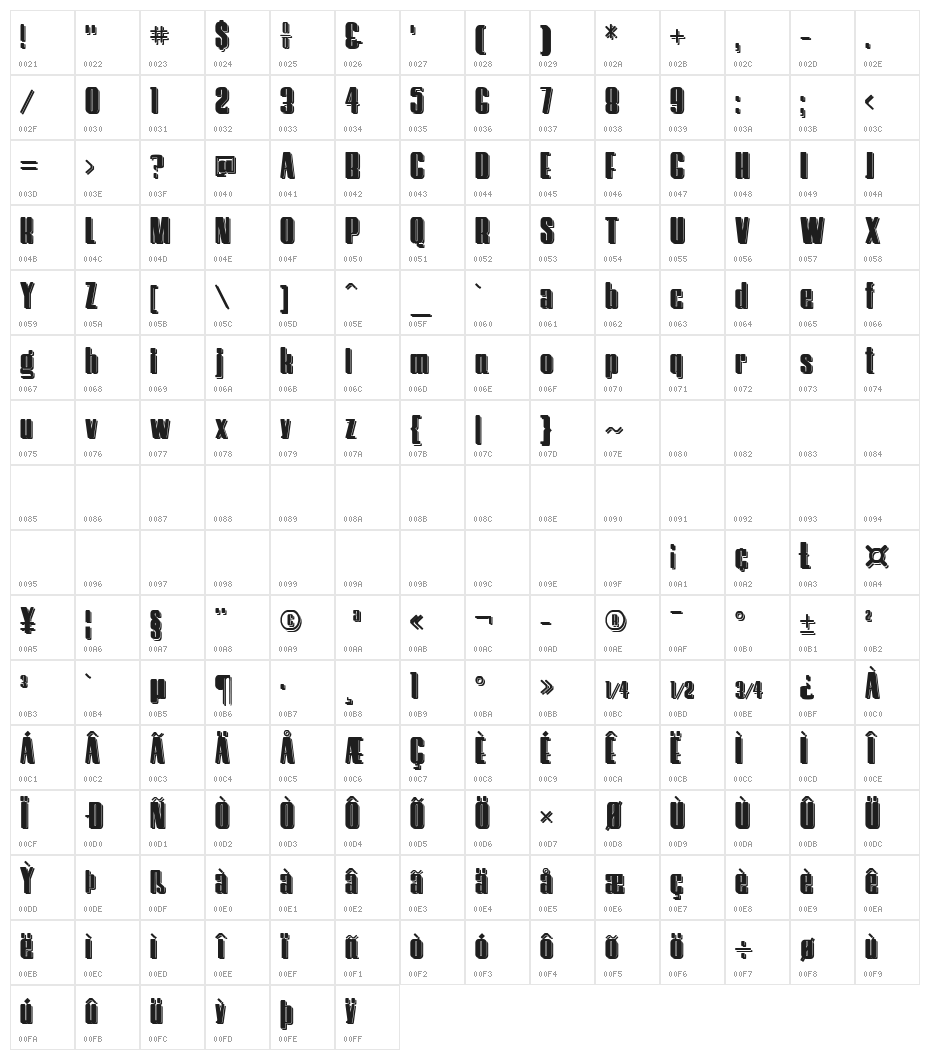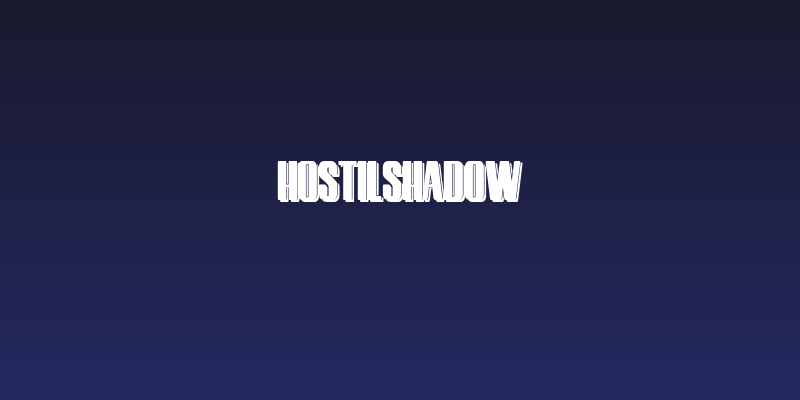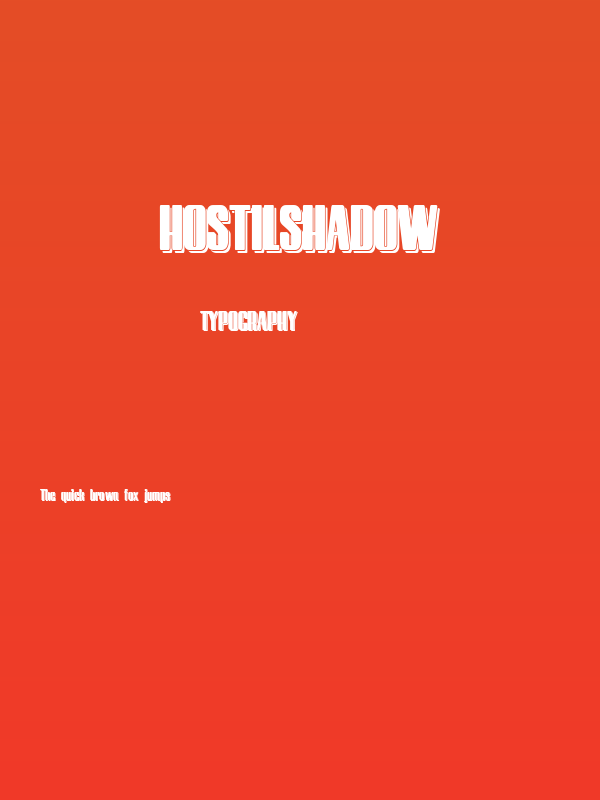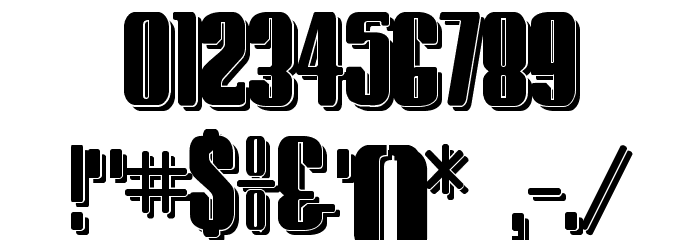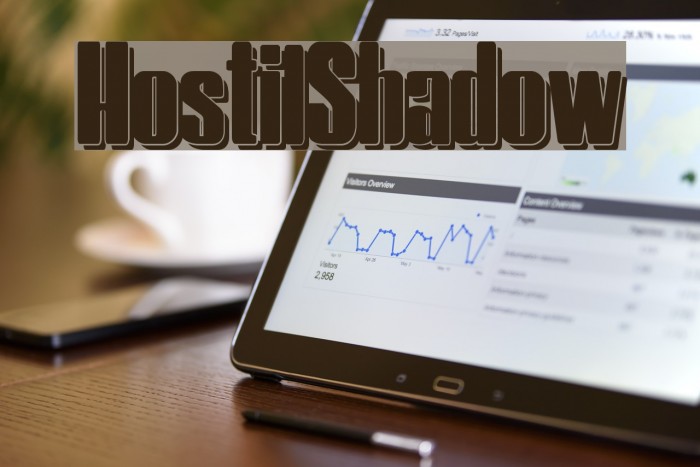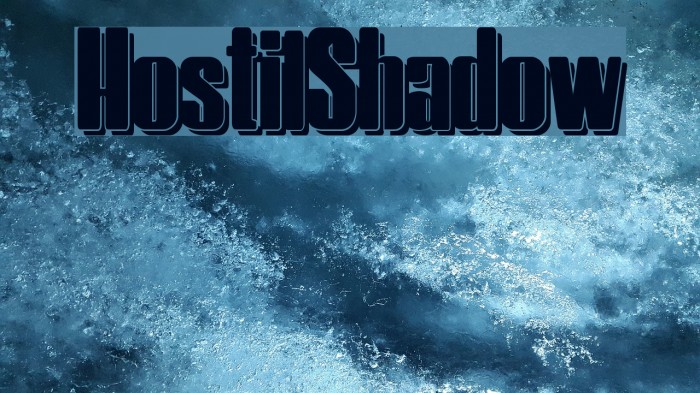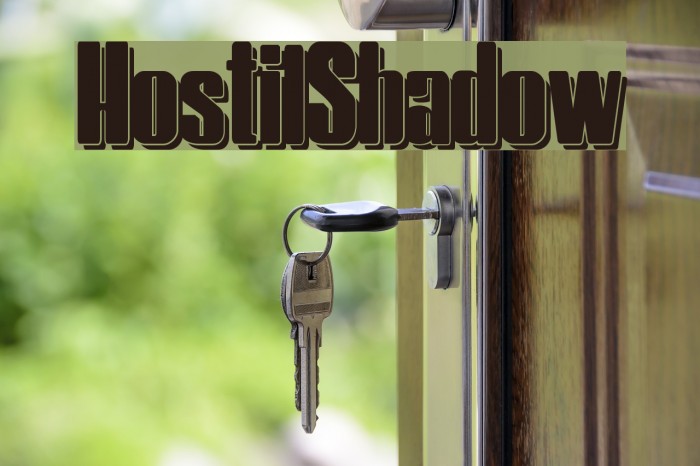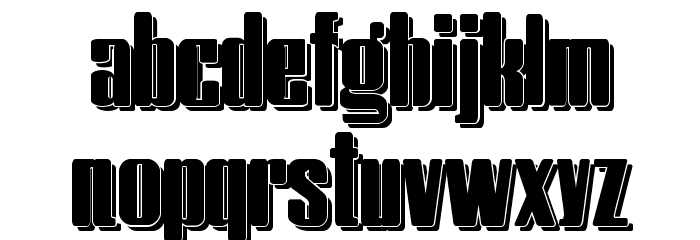
HostilShadow Font
HostilShadow Description
This font features a bold, impactful design with a strong presence. The characters are thick and blocky, with a slight shadow effect that adds depth and dimension. The uppercase and lowercase letters maintain a consistent style, with sharp angles and clean lines. The numerals and special characters follow the same bold aesthetic, making them stand out prominently. This font is ideal for creating eye-catching headlines or titles that demand attention.
| Proposed Projects | Ideal for posters, logos, and branding materials that require a bold statement. |